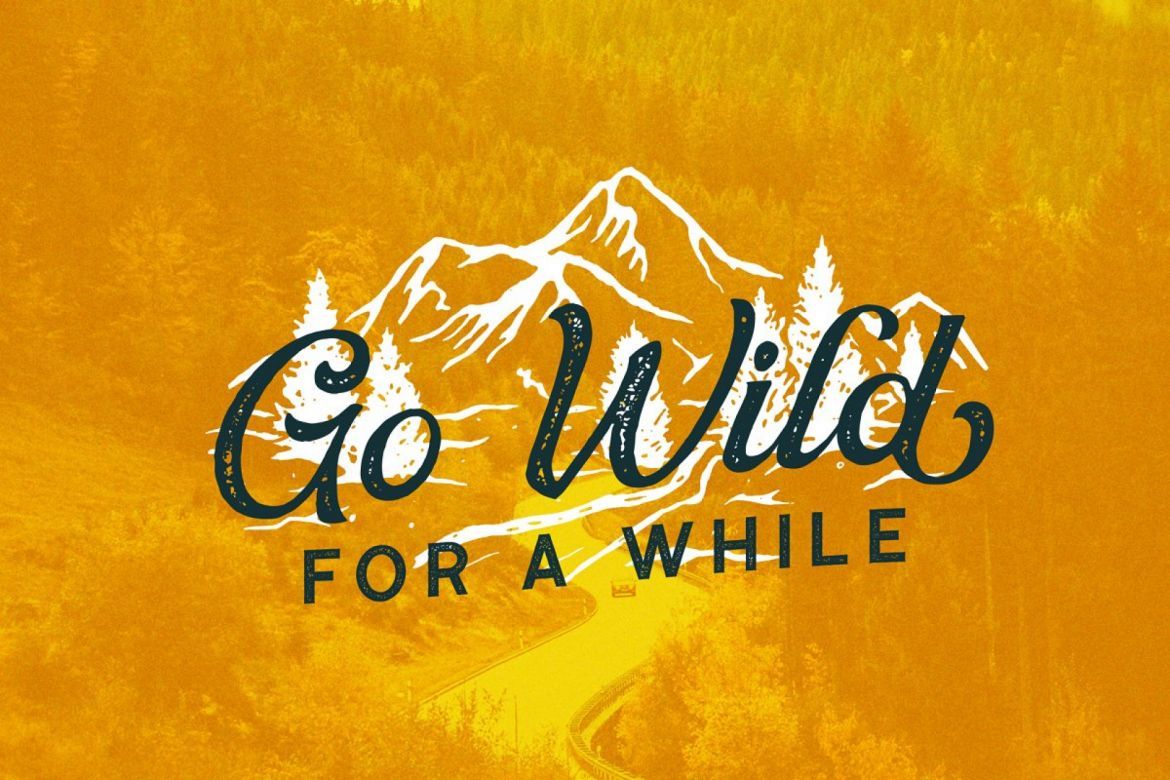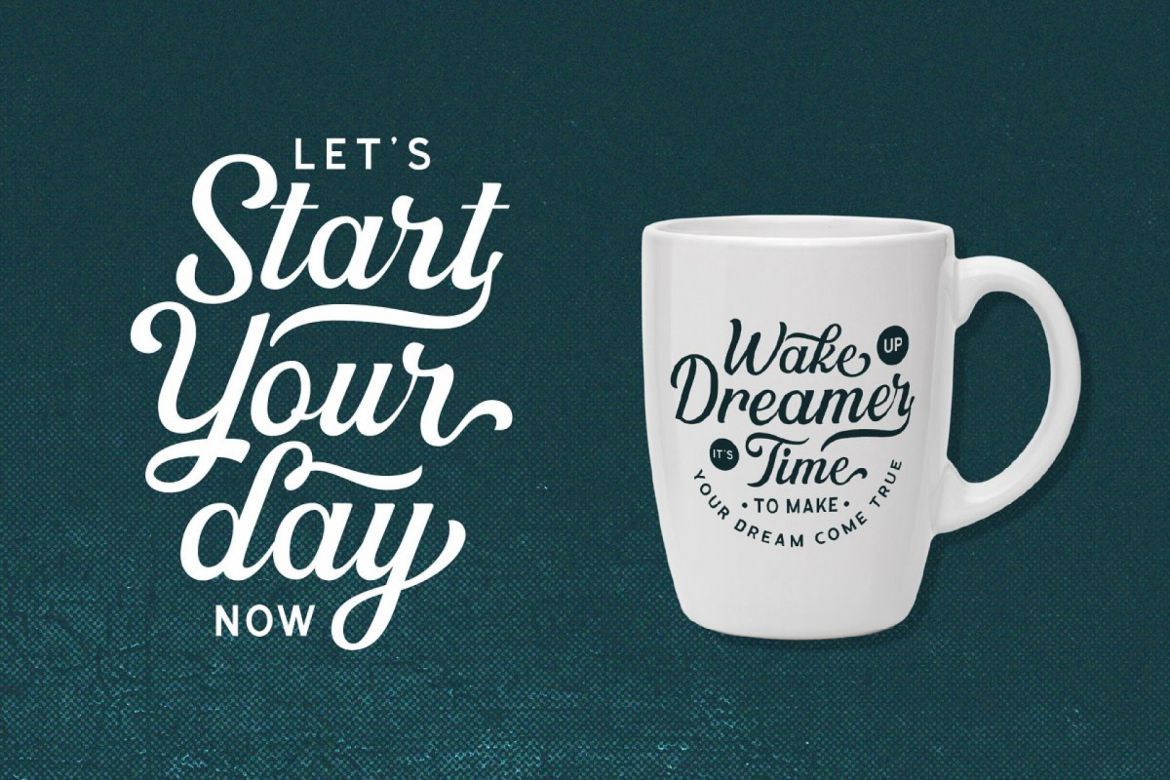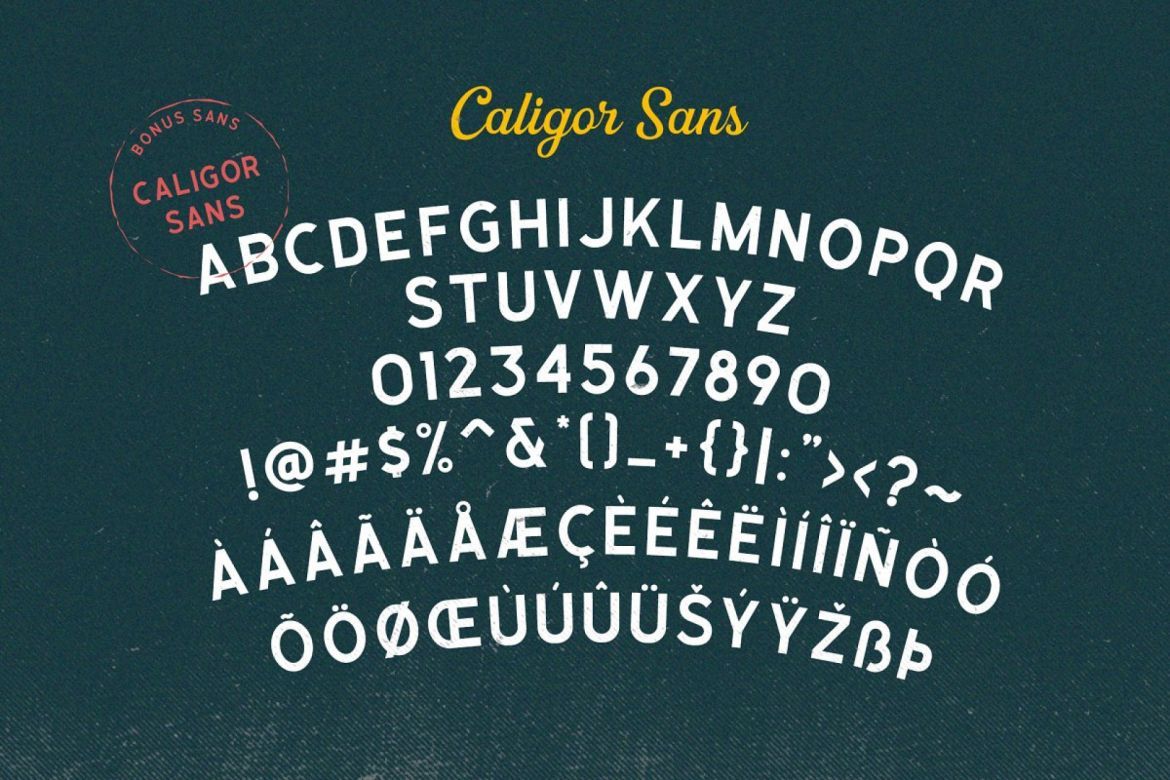
Greatly Font Duo + Logo Templates
• suitable for those of you who need fonts for especially types of logos, clothing, invitations, branding, packaging, advertising, etc.
• supports multilingual and pua-encoded.